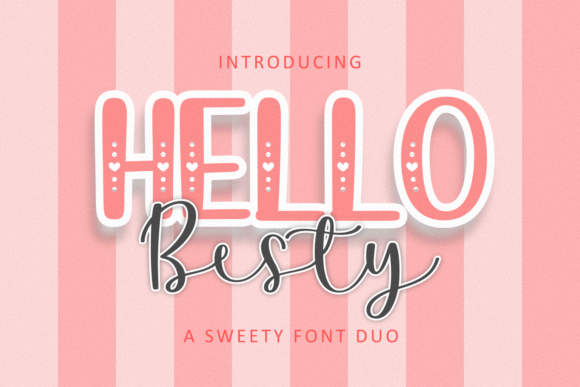
Prepare yourself to embark on a captivating typographic journey with Hello Besty Duo Font, a meticulously crafted font duo that harmoniously blends the elegance of script with the charm of sans serif. This dynamic duo possesses an innate ability to transform your creative visions into captivating realities.
Unleash the boundless potential of Hello Besty Duo Font, a font family specifically designed to ignite your imagination and elevate your designs to unparalleled heights. Whether you're a seasoned designer or just starting your creative journey, this font duo will effortlessly elevate your projects with its inherent grace and versatility.
Step into a world of limitless creativity with Hello Besty Duo Font. Its meticulously designed characters, elegantly poised and brimming with charm, will add a touch of sophistication to your designs. Effortlessly craft logos that exude professionalism, wedding invitations that radiate romance, and social media posts that demand attention.
With each stroke of Hello Besty Duo Font, you'll experience the joy of creating designs that resonate with your audience. Its enchanting script font, reminiscent of heartfelt handwritten letters, will add a personal touch to your projects, evoking a sense of nostalgia and warmth.
Hello Besty Duo Font is more than just a font; it's an artistic expression that will add a touch of magic to your creative endeavors. Its versatility knows no bounds, extending from branding projects that demand a touch of elegance to personal designs that yearn for a dash of whimsy.